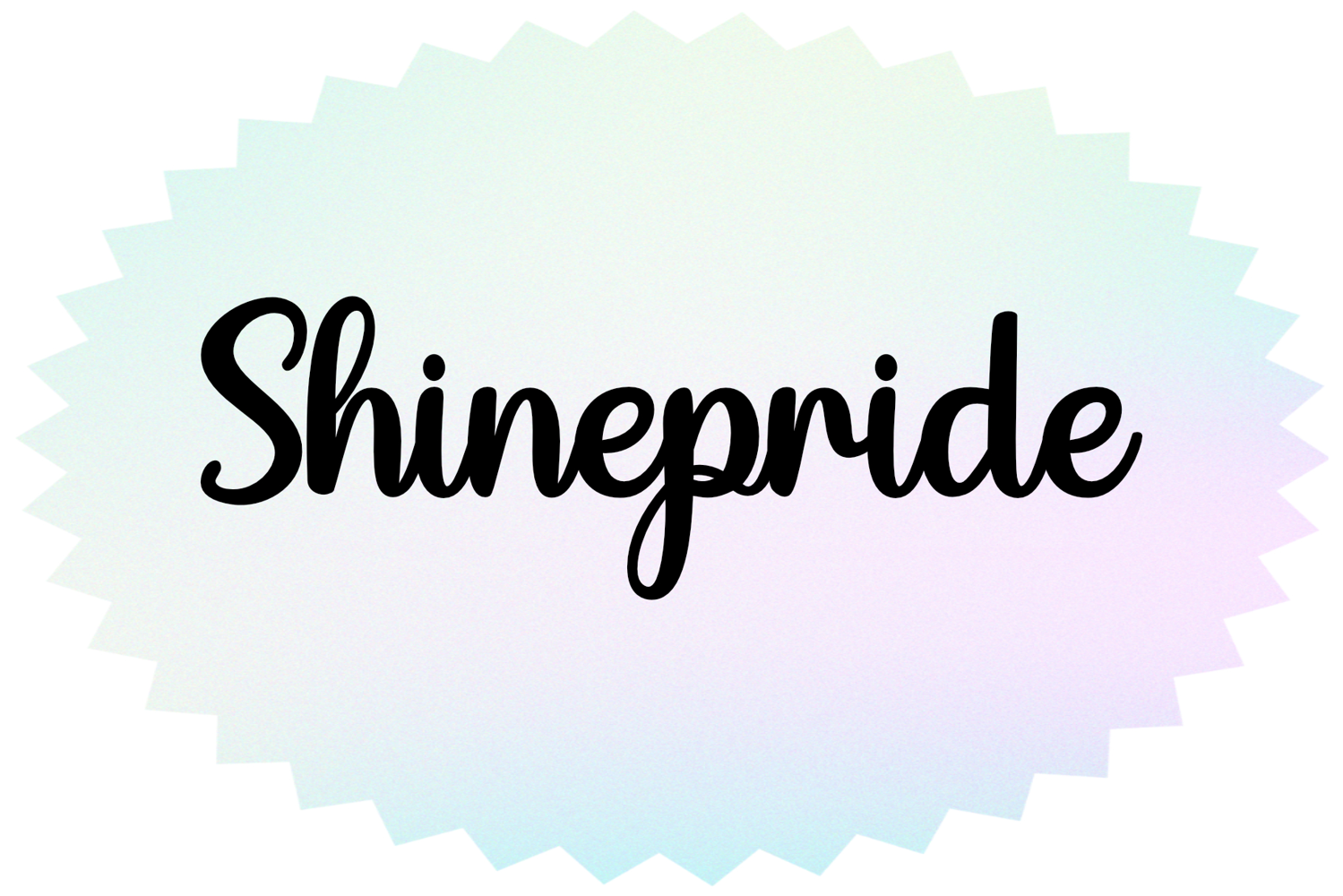
Shinepride
Shinepride Font is a premium script font that exudes elegance and sophistication. Its intricate swirls and loops give it a luxurious and stylish feel, perfect for branding, invitations, and other high-end designs. This font is designed to make a statement and elevate any project with its unique and eye-catching style.